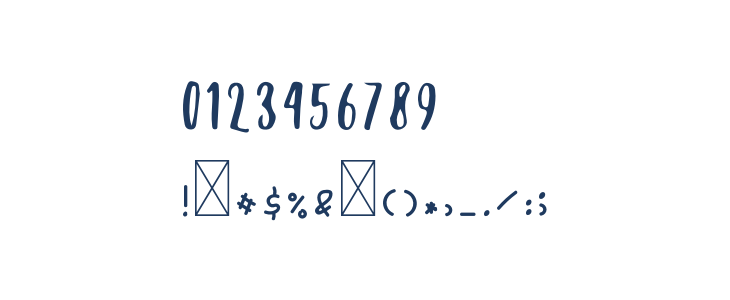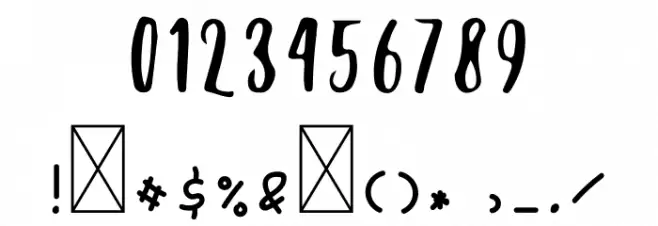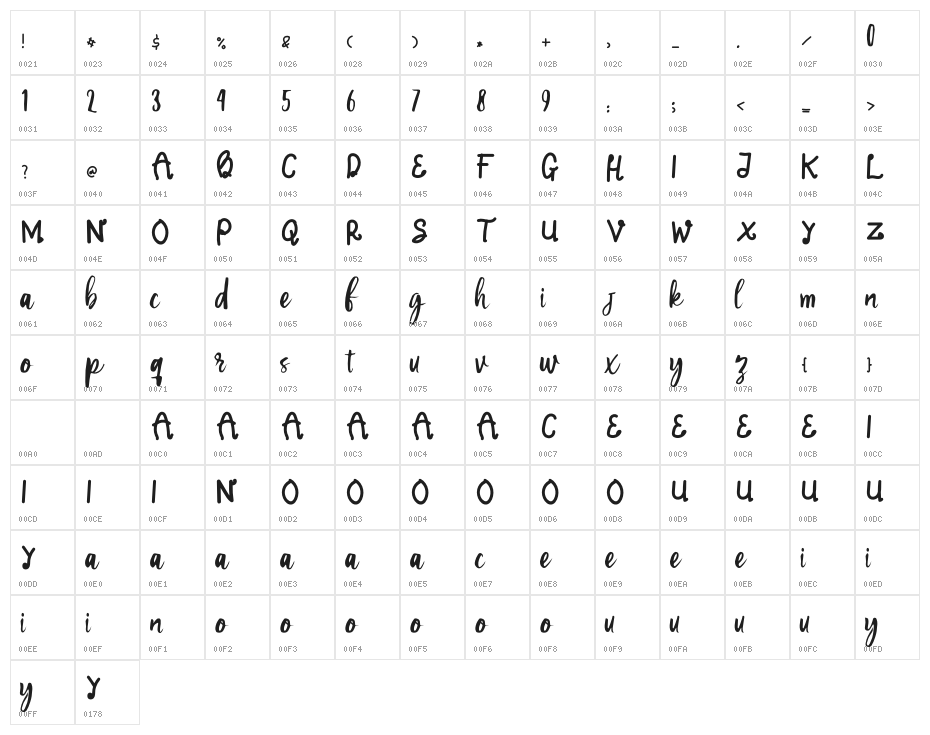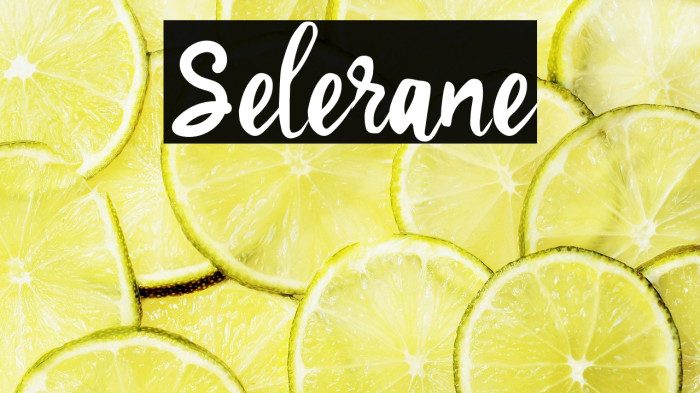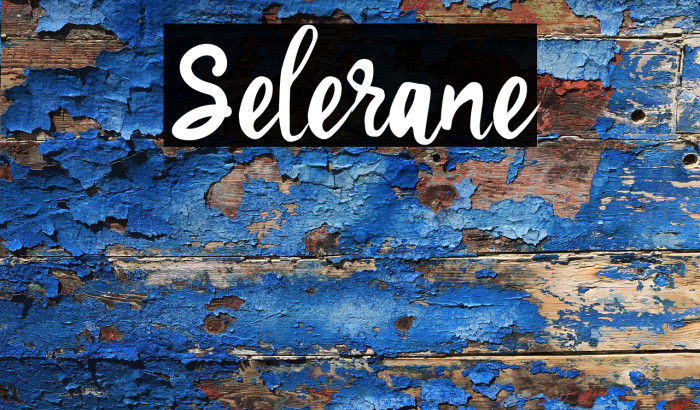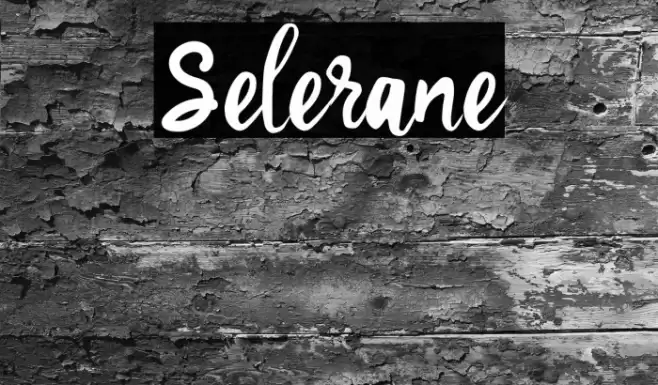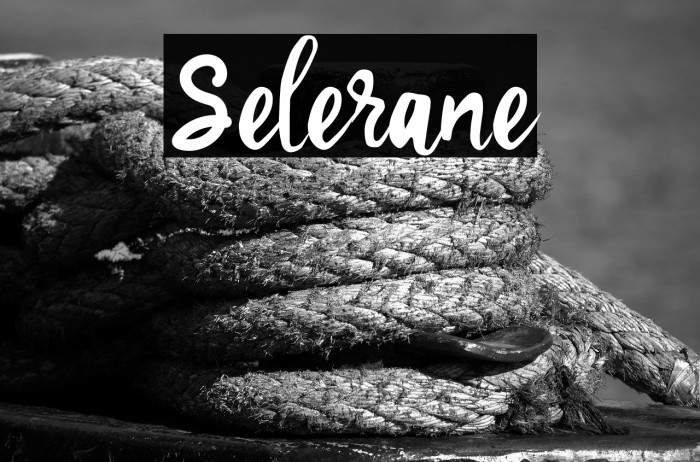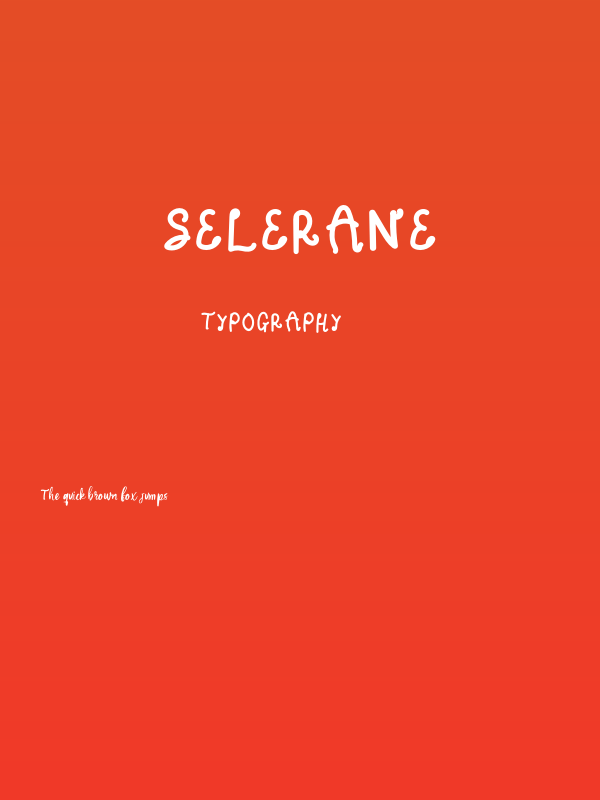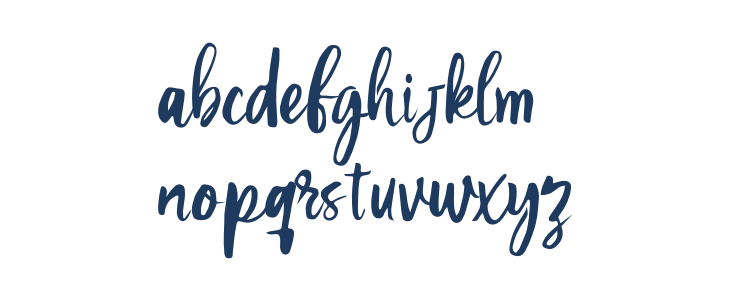
Selerane Font
Selerane Description
This font features a playful and energetic script style with a handwritten appearance. The letters are bold and expressive, with a slight slant that adds a dynamic feel. The strokes are thick and consistent, giving the font a strong presence. The uppercase letters are slightly larger and more pronounced, while the lowercase letters maintain a fluid and connected style. The numbers and special characters follow the same lively design, making them cohesive with the alphabet. This font is ideal for projects that require a personal and informal touch.